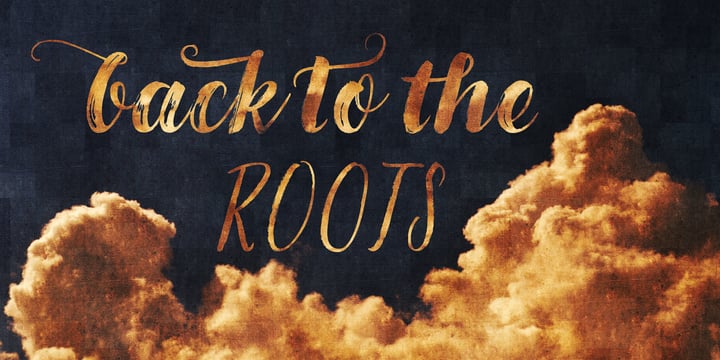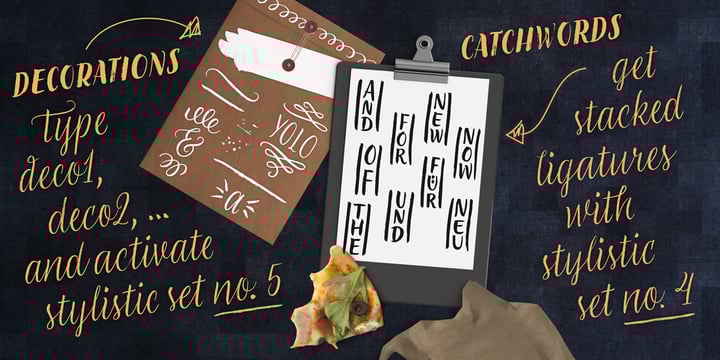
LiebeGerda
by LiebeFonts
LiebeGerda Font Family was designed by Ulrike Rausch and published by LiebeFonts. LiebeGerda contains 4 styles and family package options.
About LiebeGerda Font Family
Go out into the wilderness. Cut down a tree. Stop and smell the roses. And then treat yourself with this unplugged, hand-lettered typeface. LiebeGerda is an effortless-but-refined, spontaneous-but-elegant brush font. She is ready for your next project, and she wants to add that little crafty something that makes the difference. Her natural breath of fresh air lets you escape those same old monotonous script fonts you’ve been using. After our successful first brush font, LiebeDoris, and our first interconnected script, LiebeLotte, we’re combining both genres and taking them to the next level: an interconnected brush script. OpenType magic varies LiebeGerda’s letterforms: Most characters have no less than three different variations that are automatically shuffled and inserted as you type. Plus, the “All-Caps” OpenType feature exchanges uppercase letters with less-swashy variants. Now you know why every one of the four styles contains more than 1,200 characters! Ulrike of LiebeFonts painted LiebeGerda’s four styles individually from scratch and carefully adjusted every detail by hand. Rather than being one typeface with different weights, LiebeGerda is a package of four individual fonts that go together really well. Ulrike’s high level of type-nerdy craftsmanship shows. When you use LiebeGerda, your designs will easily convince your audience that they’re looking at a hand-crafted piece of lettering. Feel free to add a few of the stacked ligatures like “the”, “for”, and “new” to round off the illusion. Last but not least, LiebeGerda has a lot more detail than most other brush fonts. That means there’s no ugly, lazy bézier artifacts in the brush traces. You can print words at billboard size, and people will still believe they smell the paint from your brush!
About LiebeFonts
“Liebe” means “love” in German. “The name LiebeFonts is meaningful to me in more ways than one”, Ulrike Rausch said in her 2013 Creative Characters interview. “On one hand, my fonts obviously look ‘sweet’ — in other words, friendly and lovable. And of course the name also refers to my own love of fonts.” Ulrike’s skills are equal parts handicraft and digital savvy, and her fonts are as technically sophisticated as they are charming. “It is very important to me that my fonts serve a wide variety of languages so that they are suitable for professional typesetting,” she says. “I also invest a lot of time into sensibly grouped OpenType features like contextual and stylistic alternates as well as a wide range of ligatures and swashed letters.”